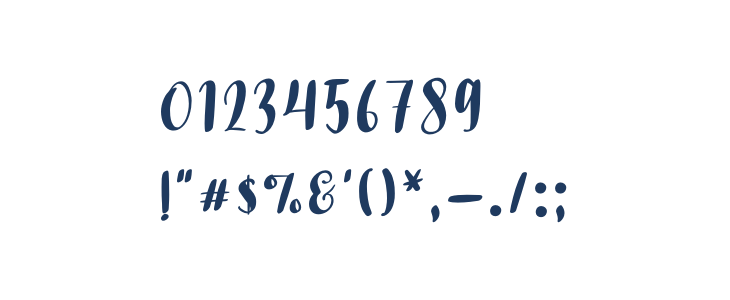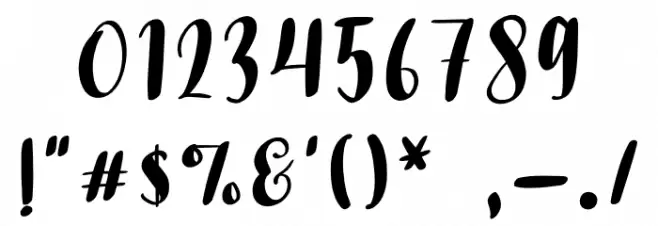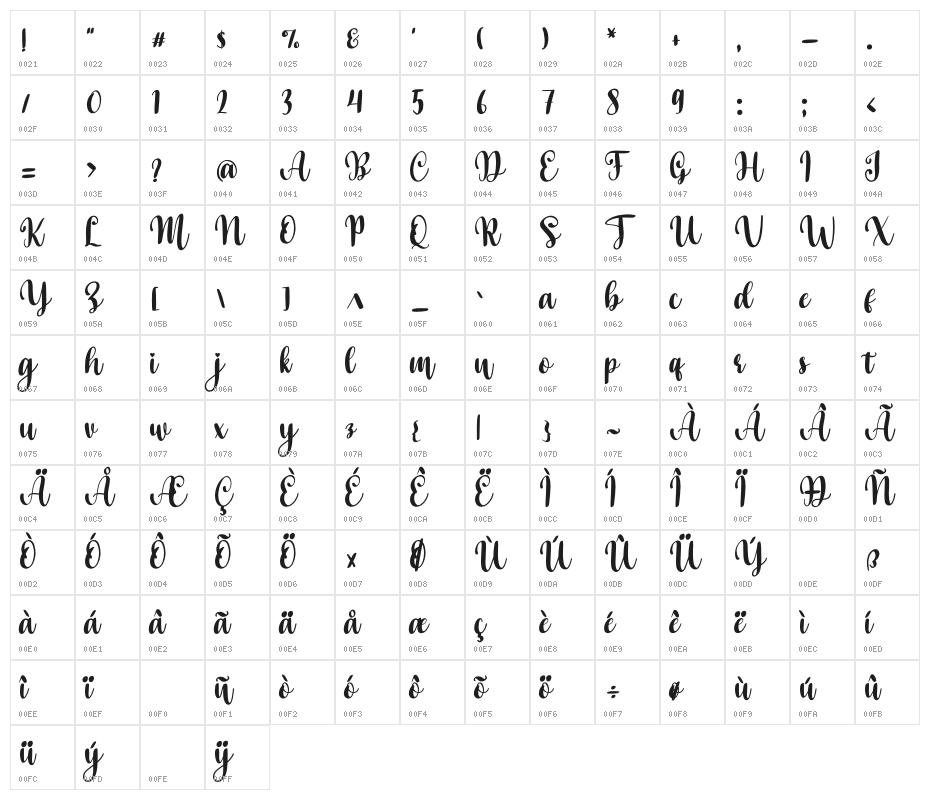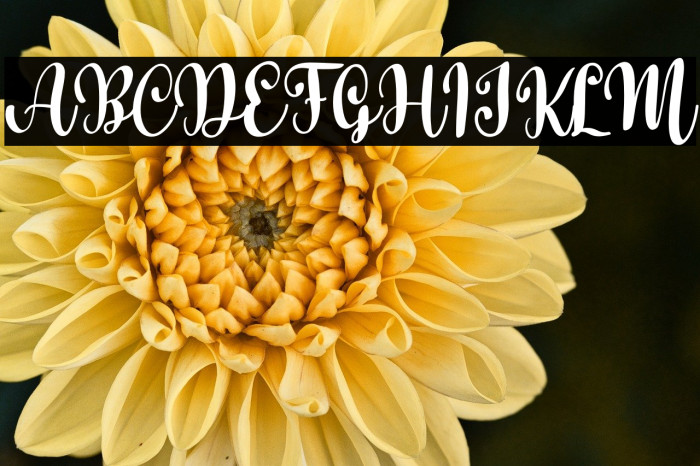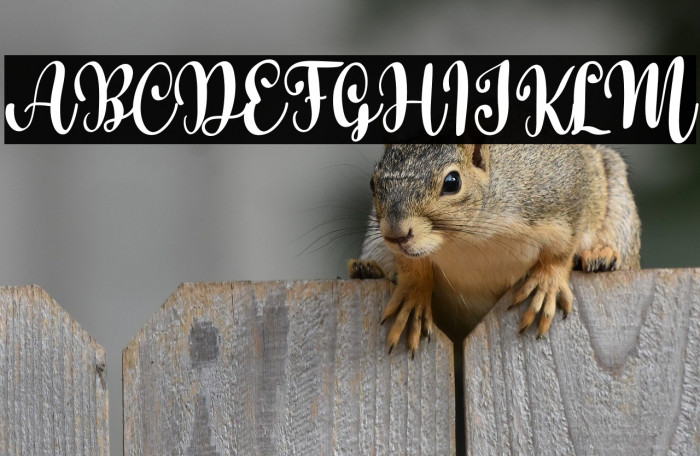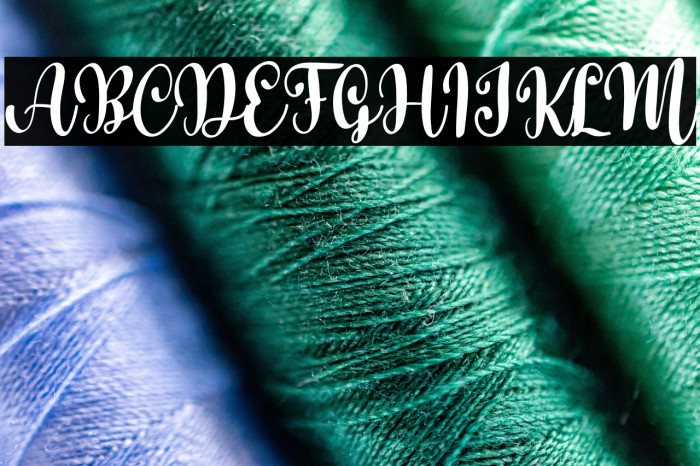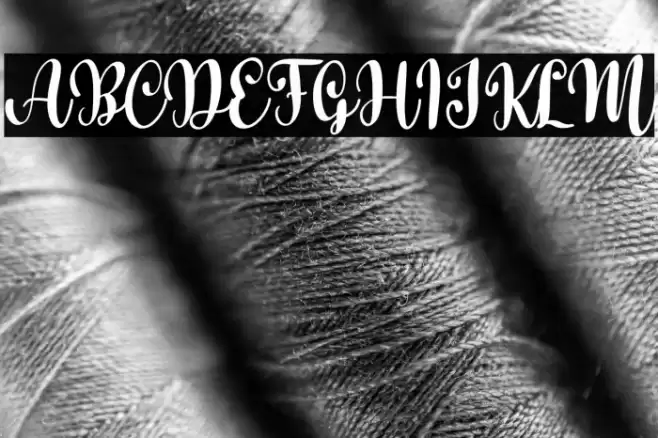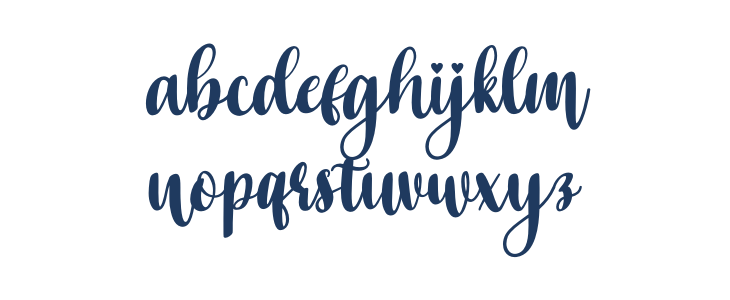
welove Font
welove Description
This font features a bold, flowing script style with a modern flair. The uppercase letters are elegantly crafted with smooth curves and a slight slant, giving them a dynamic and graceful appearance. The lowercase letters maintain a consistent style, with some characters featuring unique loops and swashes that add to the font's decorative nature. The numerals are bold and clear, maintaining the script's overall aesthetic. Special characters are included, matching the font's style with a playful yet sophisticated touch. This font is perfect for projects that require a personal, handwritten feel while maintaining readability and style.